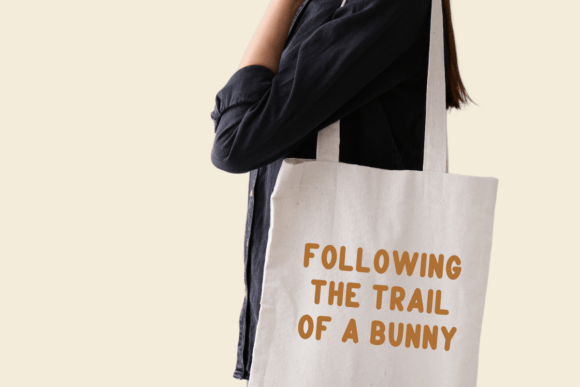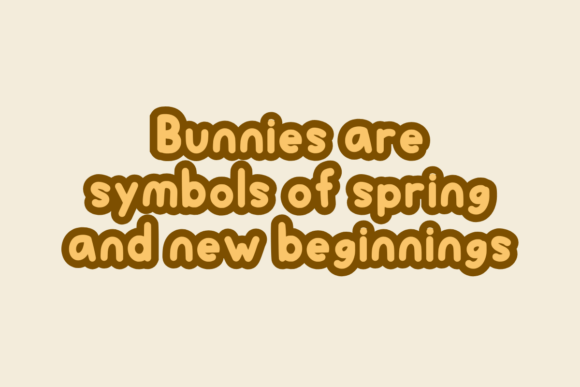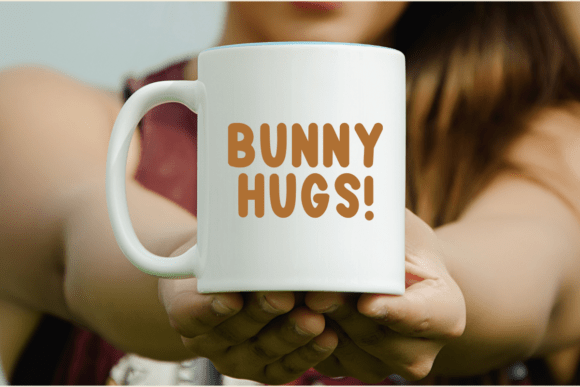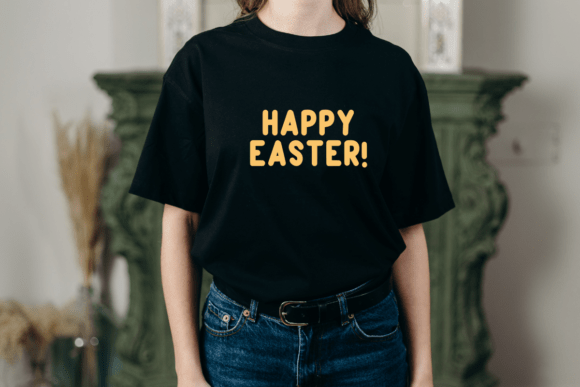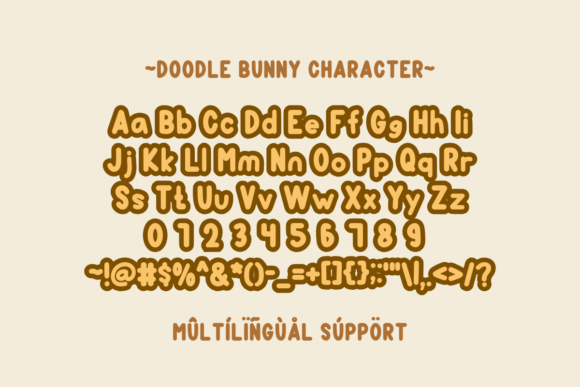
The Joy of Handwritten Charm: Doodle Bunny Font
Have you ever felt a rush of excitement when creating something with your own two hands? Maybe it was a hand-painted masterpiece, a hand-stamped card, or a handwritten letter to a loved one. For many of us, the process of bringing our ideas to life is just as enjoyable as the final result. That’s why I’m thrilled to introduce you to the Doodle Bunny Font, a playful handwritten font that’s perfect for adding that special touch to your crafts, planners, and DIY projects.
With its cute and friendly style, the Doodle Bunny Font is ideal for designers, crafters, and makers who want to add a personal and whimsical touch to their creations. Whether you’re working on a Cricut project, designing stickers, or creating greeting cards, this font is sure to bring a smile to your face and make your projects stand out. Its versatility and charm make it a valuable addition to any designer’s toolkit.
Doodle Bunny Font Key Features
- Font Style: Doodle Bunny is a playful, hand-drawn font that adds a whimsical touch to any design.
- Character Count: Includes 260 characters, including uppercase and lowercase letters, numbers, and special characters.
- Unique Characteristics: Features a distinctive, hand-drawn style with imperfections and variations that give it a unique, organic feel.
Doodle Bunny Font Review
Overall, I have mixed feelings about the Doodle Bunny Font. While it has some unique qualities that make it stand out, it also has some limitations that might make it less suitable for certain projects.
- Quirky charm**: Doodle Bunny Font has a playful, whimsical feel that can add a touch of personality to designs.
- Highly customizable**: The font is available in a range of styles and weights, making it easy to adapt to different design needs.
- Fun for children’s projects**: The font’s playful feel makes it a great choice for children’s books, educational materials, and other projects aimed at young audiences.
- Not ideal for formal projects**: The font’s playful feel might not be suitable for formal or professional projects, such as business reports or academic papers.
- May be difficult to read**: Some of the font’s styles and weights can be challenging to read, especially at small sizes.
- Limited legibility**: The font’s playful feel can sometimes come at the expense of legibility, making it less suitable for body text or large blocks of text.
The Doodle Bunny Font is a fun and versatile font that can add a touch of personality to designs. However, it’s not ideal for all projects, and its limitations should be carefully considered before choosing it for a design. With some careful selection and use, this font can be a great addition to a designer’s toolkit.
The Doodle Bunny Font is perfect for:
For the most out of the Doodle Bunny Font, use it sparingly and in combination with other playful fonts to create a whimsical and eye-catching design.
What is the recommended font size for optimal readability with the Doodle Bunny Font?
The recommended font size for optimal readability with the Doodle Bunny Font is between 12-24 points. However, this may vary depending on the specific design context, such as the font’s line height, spacing, and surrounding elements. Experiment with different font sizes to find the best balance for your design.